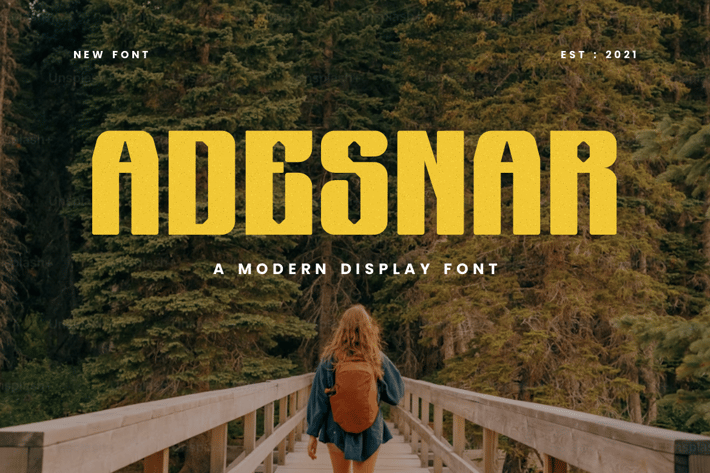
Adesnar - Modern Display Font
Adesnar - Modern Display Font Font is unique . Ready to use for your design like labeling, movie sceen, poster, movie title, gigs, album covers, logos, and much more.